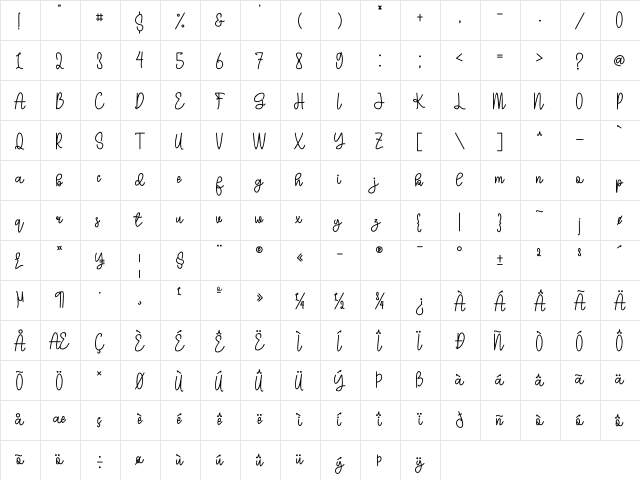
Serendipity Regular
| Designer | Arief Tri Sulistiyono |
Serendipity is a composed and adaptable typeface that performs quietly and consistently across a wide range of design contexts.